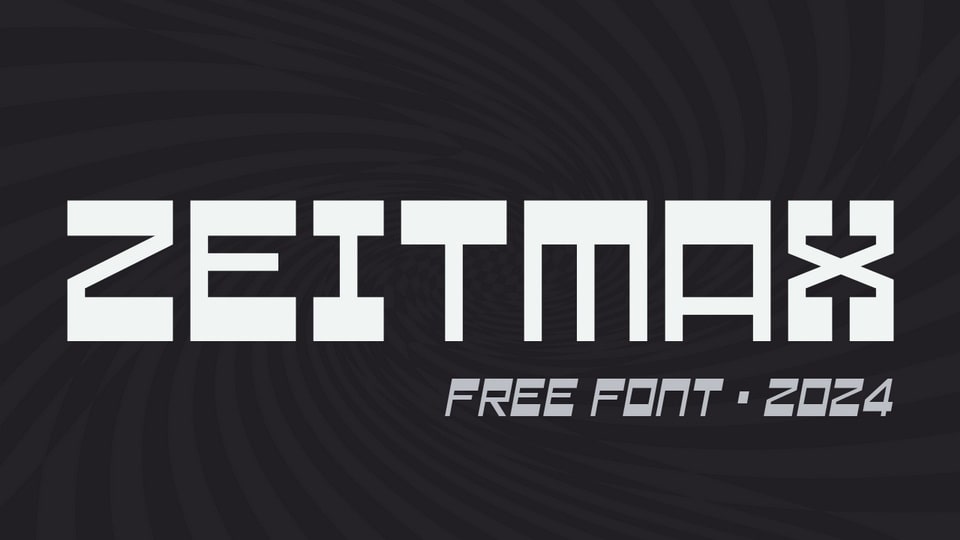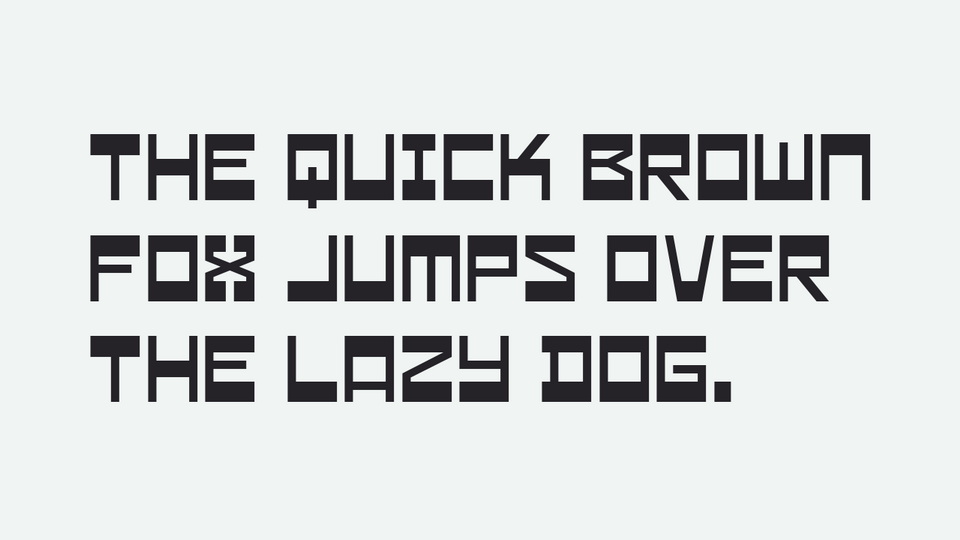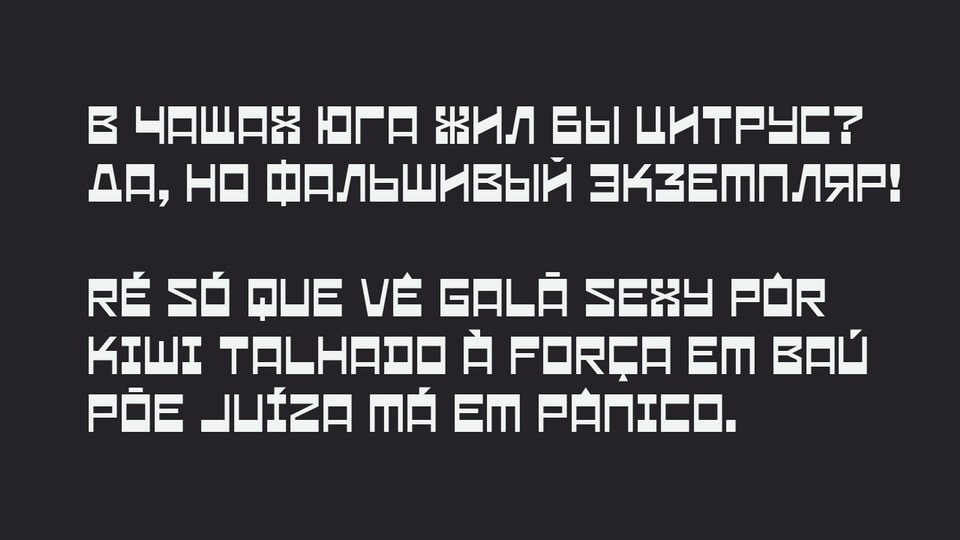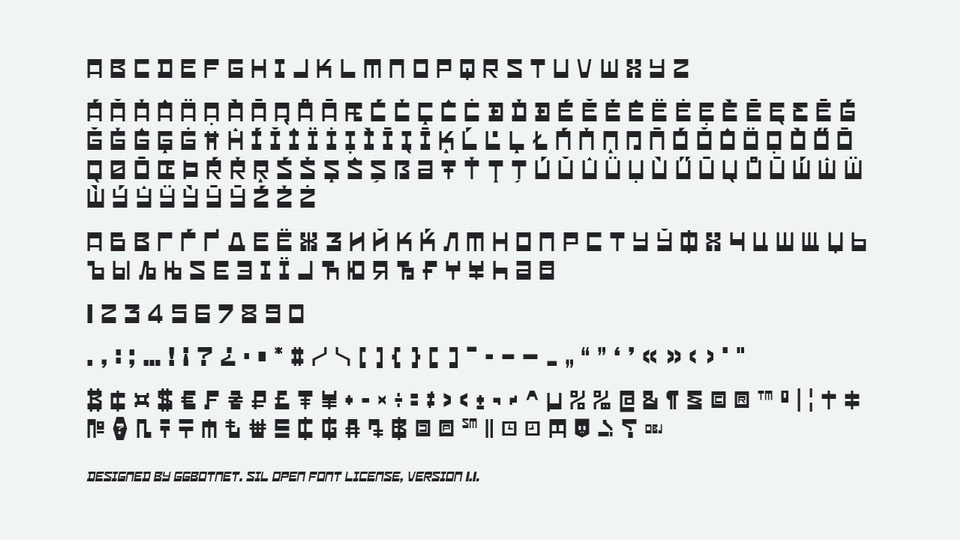
Zeitmax
Zeitmax is a decorative display typeface with a square, modular construction and a digital, machine-like rhythm. Its letters use heavy geometric strokes, compact proportions, sharp corners, and small cut details that give the alphabet a pixel-tech appearance. The spacing feels tight but orderly, with upright forms and low stroke contrast across capitals, numerals, symbols, and extended characters. Readability is strongest at large sizes, where the block structure remains clear. The style suits sci-fi titles, game interfaces, cyberpunk graphics, tech posters, electronic music artwork, short headline settings, or compact branding accents.